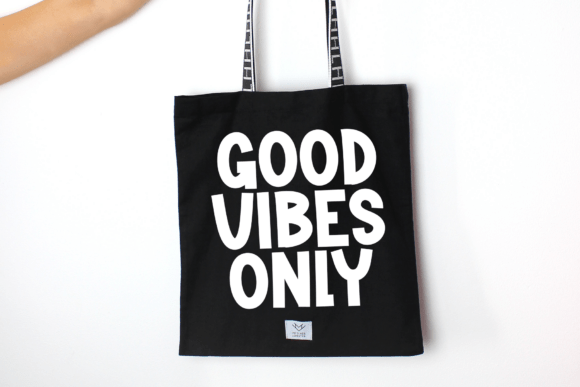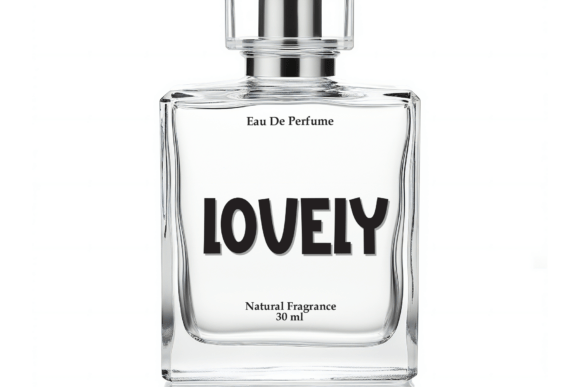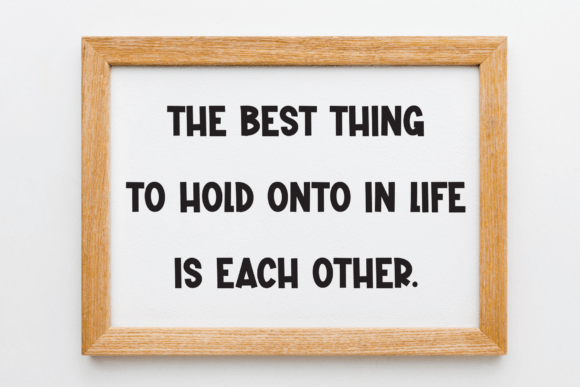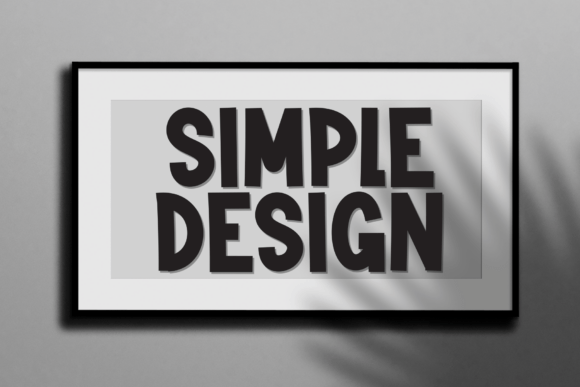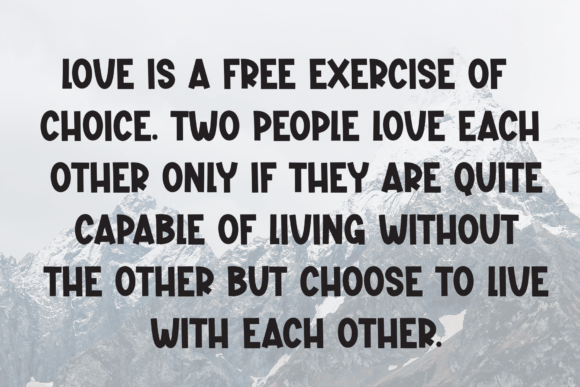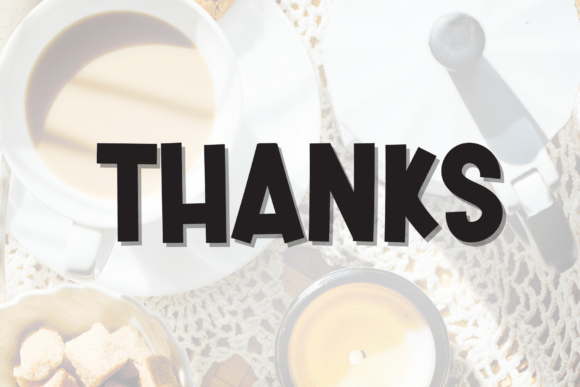
Coffee Break Font: Add a Dash of Whimsy to Your Designs
Are you tired of using the same old fonts in your designs? Do you want to add a touch of personality and whimsy to your creations? Look no further than the Coffee Break Font, a delightful handwritten display font that’s sure to bring a smile to your face. With its sweet friendliness and playful charm, this font is perfect for designers and crafters who want to add a dash of fun to their work.
The Perfect Blend of Cute and Playful
Coffee Break Font is a unique and irresistibly cute font that’s designed to bring liveliness to your creations. Its handwritten strokes are full of character and charm, making it the perfect choice for crafting heartwarming wedding invitations, charming greeting cards, or any design that needs an injection of joy and whimsy. Whether you’re a designer, crafter, or DIY enthusiast, this font is sure to inspire your creativity and take your work to the next level.
What Makes Coffee Break Font So Special?
So, what sets Coffee Break Font apart from other fonts on the market? Here are just a few features that make it a standout:
- Handwritten charm: Each stroke of the pen is full of character and personality, giving your designs a unique and human touch.
- Playful and whimsical: This font is designed to add a dash of fun to your work, making it perfect for designs that need a little extra personality.
- Versatile: Coffee Break Font is perfect for a wide range of design applications, from wedding invitations and greeting cards to social media graphics and more.
Uses for Coffee Break Font
Coffee Break Font is a versatile font that can be used in a wide range of design applications. Here are just a few ideas to get you started:
- Wedding invitations: Add a touch of whimsy and romance to your wedding invitations with this beautiful handwritten font.
- Greeting cards: Create charming and personalized greeting cards for birthdays, holidays, and other special occasions.
- Social media graphics: Add a dash of fun and personality to your social media graphics with this playful font.
- DIY projects: Use Coffee Break Font to add a personal touch to your DIY projects, such as scrapbooking, journaling, and more.
Coffee Break Font is a unique and delightful handwritten display font that’s sure to bring a touch of whimsy and personality to your designs. With its sweet friendliness and playful charm, this font is perfect for designers and crafters who want to add a dash of fun to their work. Whether you’re creating wedding invitations, greeting cards, or social media graphics, Coffee Break Font is the perfect choice. So why wait? Download Coffee Break Font today and start experiencing the artistry that makes every stroke of the pen a creative journey!